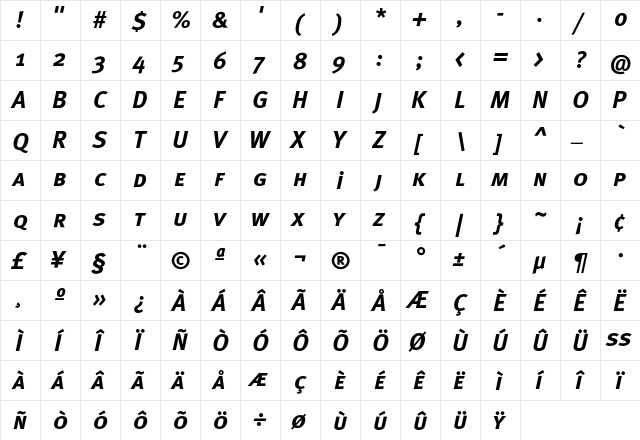
MetaBoldTurk ItalicCaps Font Preview
Design Context for MetaBoldTurk Typeface
MetaBoldTurk takes a measured approach to typography — its balanced proportions and neutral character make it a reliable workhorse for both digital and print work. Its italic angle brings a sense of urgency and motion to the letterforms. Its bold stroke weight gives it real presence on the page.
Pro Tip: Try MetaBoldTurk for annotation and caption copy alongside an upright companion — the contrast in angle creates a dynamic but ordered typographic system.